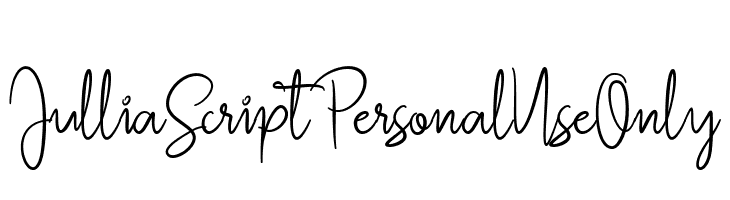
A cursive, handwritten font with elegant, flowing strokes.
An elegant and flowing script font with cursive, handwritten style.
A flowing, cursive script with elegant loops and swashes.
A graceful, cursive script font with elegant, flowing strokes.
An elegant, flowing script font with a handwritten style.
A fluid and elegant handwritten script font with a personal touch.